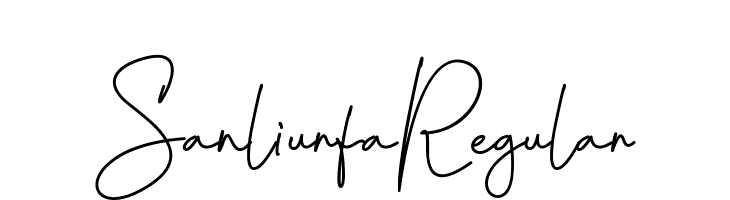
A lively and dynamic handwritten font with fluid strokes and medium contrast.
A lively and elegant script font with smooth, flowing strokes.
A lively and expressive handwritten font with fluid, dynamic letterforms.